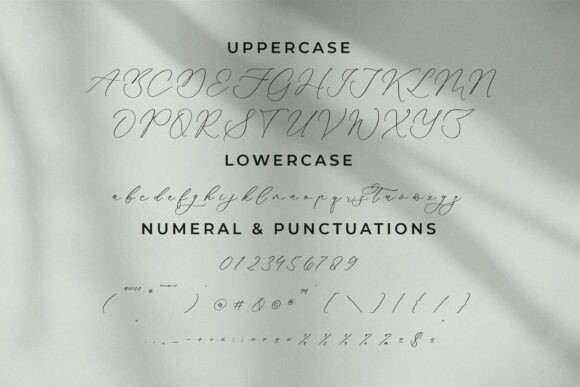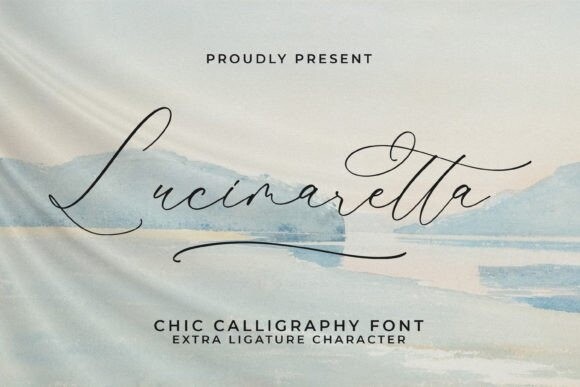
Lucimaretta Font
Lucimaretta Font – Chic Calligraphy Font perfect for any project like logos, branding projects, homewares designs, product packaging, mugs, quotes, posters, shopping bags, t-shirts, covers books, business cards, invitation cards, greeting cards, labels, photography, watermarks, special events and all your other luxury projects that require a premium taste.